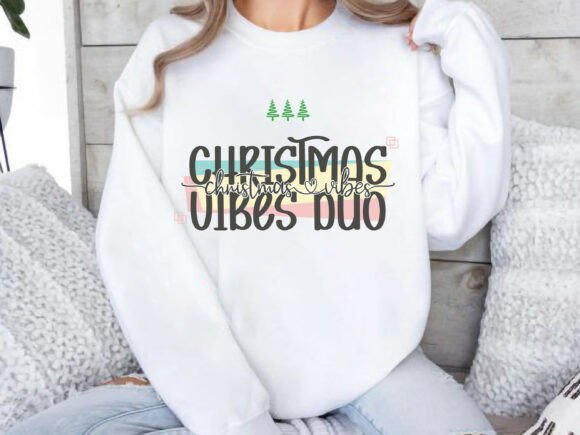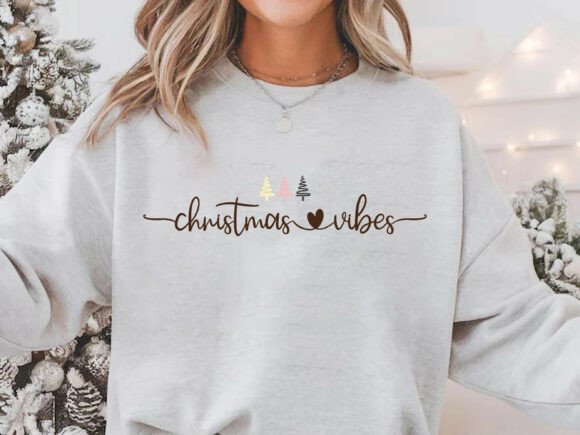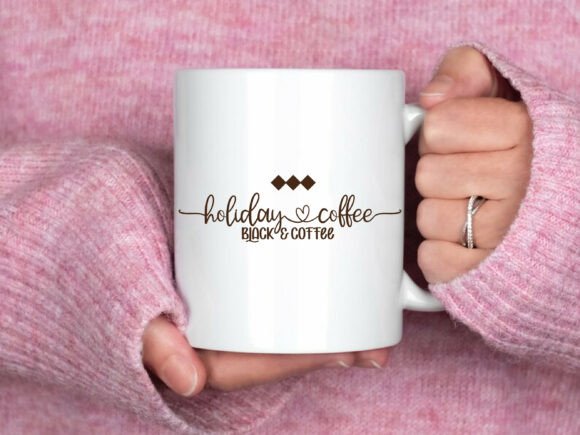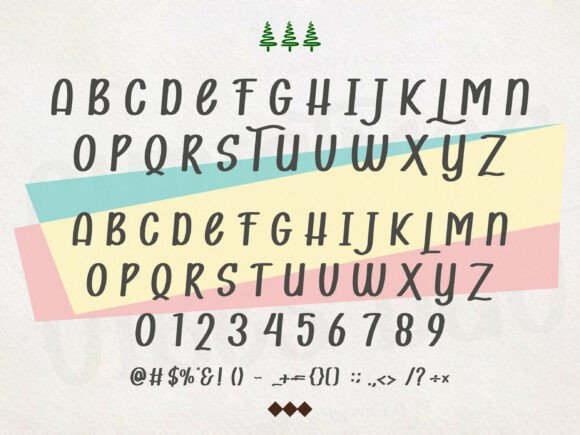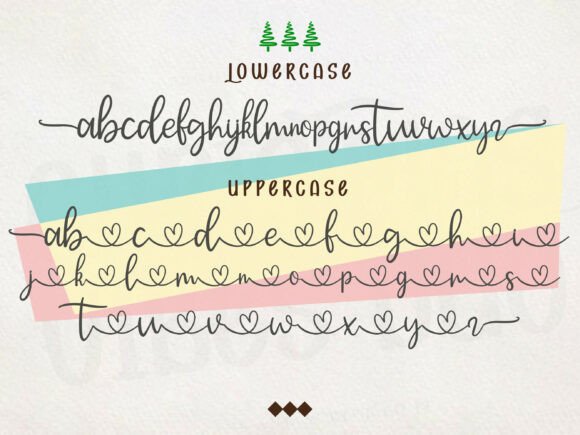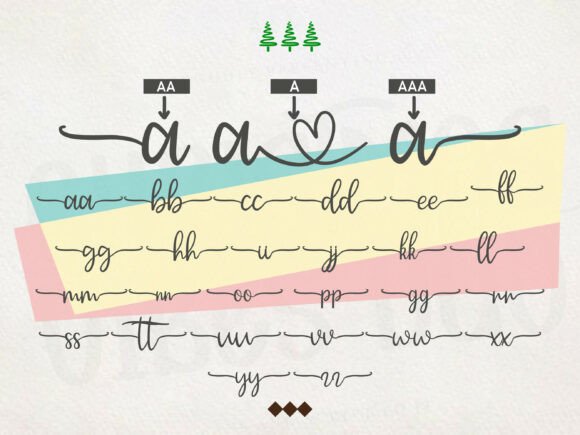
Getting into the Holiday Spirit with Christmas Vibes Duo Font
I still remember the year I was tasked with designing a Christmas card for my family’s annual holiday party. I had a clear vision of a fun, festive design, but I was struggling to find the perfect font combination. The cards needed to be merry and bright, yet elegant and sophisticated. That’s when I stumbled upon the Christmas Vibes Duo Font, a delightful pairing that blended a bold sans serif with a whimsical script. It was love at first sight! ✨
An Honest Review of Christmas Vibes Duo Font
• ✨ The perfect blend of modern and elegant: The sans serif version is fun and contemporary, while the script adds a touch of sophistication with its hand-lettered charm and heart swashes.
• 🎉 Versatile: This font duo is ideal for various festive projects, such as Christmas cards, party invites, gift tags, social media posts, and holiday merchandise.
• 👍 Excellent for pairing: The sans and script versions work beautifully together or separately, creating eye-catching and joyful typography.
While I adore the Christmas Vibes Duo Font, there are a few minor considerations to keep in mind: 🤔
• ⚠️ Limited use outside of festive projects: The font’s holiday theme might make it less suitable for non-seasonal designs.
• ⚠️ Some characters may require manual adjustment: As with any script font, a few characters might need tweaking to ensure optimal spacing and alignment.
The Story Behind Christmas Vibes Duo Font
The Christmas Vibes Duo Font was designed with the holiday season in mind. The creator aimed to craft a font pairing that would capture the spirit of Christmas, blending modern and traditional elements. The result is a delightful duo that spreads cheer and creativity, perfect for festive and family-friendly projects.
Q: Is Christmas Vibes Duo Font suitable for non-festive projects?
A: While the font’s holiday theme might make it less suitable for non-seasonal designs, you can still experiment with using it in other contexts, depending on your creative vision.